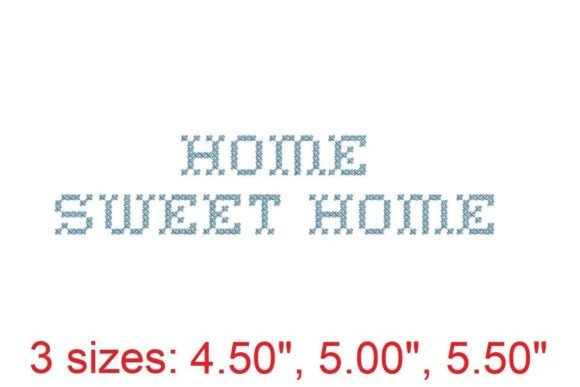
Home Sweet Home Embroidery Font
The Home Sweet Home embroidery font is a versatile and stylish addition to any embroidery designer's toolkit. As someone who regularly works on custom apparel and boutique merchandise, I was eager to explore how this design might enhance my upcoming sweatshirt and hoodie collection.
First Impressions of Home Sweet Home
From the moment I viewed the Home Sweet Home embroidery font, it exuded a warm, inviting personality. The design feels both classic and contemporary, with a balance of simplicity and decorative strength. It carries a subtle elegance that would work well on a range of fabrics and garment styles.
The stitching mood is clean and professional, making it ideal for small chest placements or larger back designs. The level of detail is impressive, especially for a font that maintains readability at smaller sizes. It has a slightly feminine touch but remains adaptable for a variety of projects, from casual wear to more refined pieces.
Home Sweet Home in Action
For a Back To School collection, this font could serve as a great focal point on sweatshirts, hoodies, and tote bags. On neutral-colored sweatshirts, it adds a soft yet noticeable presence. When paired with pastel hues, it enhances the overall aesthetic without overwhelming the design.
On dark apparel, the font stands out beautifully, especially when using contrasting thread colors. It also adapts well to oversized garments, where its clean lines can be emphasized without looking cramped. For t-shirts, it’s a great choice for minimalistic branding, while on denim jackets, it offers a subtle yet distinctive touch.
Embroidery Applications
- Sweatshirt Embroidery: Perfect for chest or sleeve placements, offering a polished look that complements casual wear.
- Hoodie Design: Ideal for back or front placement, adding a personal and memorable touch to each piece.
- Tote Bag Design: Works well on large surfaces, allowing for creative layout options and visual impact.
- Boutique Merchandise: Enhances handmade product appeal, especially for Etsy sellers and small shop products.
Considerations for Use
When using Home Sweet Home on stretchy fabric or fleece, it's important to choose the right stabilizer to prevent distortion. Dense stitch areas may require additional support to maintain the design's integrity. For ribbed fabrics, careful attention to hoop size and stitch density will ensure a smooth finish.
On curved surfaces, such as sleeves or necklines, the font retains its clarity, making it a reliable option for complex placements. Tiny lettering is still legible, though testing on similar garment fabric is recommended before full production.
Impact on Apparel Value and Brand Identity
Home Sweet Home can significantly elevate the perceived value of custom apparel. Its consistent visual style helps reinforce brand identity, making it easier for customers to recognize and connect with your offerings. As an Etsy seller or handmade business owner, this design can create a cohesive look across your product line, enhancing customer engagement and trust.
In commercial embroidery, the font provides a professional presentation that aligns with high-quality standards. It also supports visual consistency across different items, whether you're creating printable mockups or social media graphics.
Practical Designer Notes
Before finalizing any project, I recommend testing the Home Sweet Home embroidery file on scrap fabric to assess how it interacts with different textures. Pay close attention to thread color contrast, especially on dark garments, to ensure maximum visibility.
Confirm the hoop size required for your machine and review the stitch density to avoid issues with stretching or wrinkling. If you're working with a Creative Fabrica embroidery file, make sure to check the licensing terms before selling finished products.